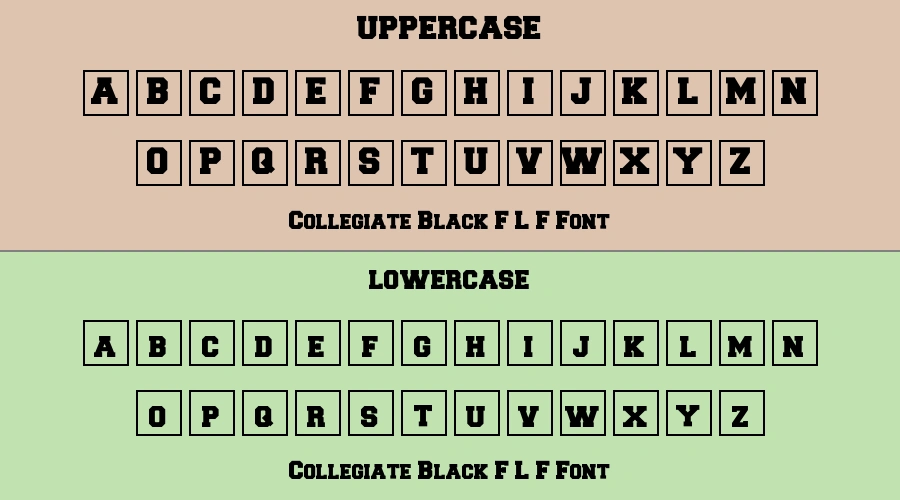
About Collegiate Black F L F Font
Collegiate Black F L F Font stands out for its distinctive combination of fluid motion and versatility. Ideal for logo design, it provides the refinement and visual appeal that professional projects demand. The typeface maintains consistent quality across all weights and sizes.
Key features include refined ornamental caps and practical terminal characters, enhancing typographic expression. In display applications applications, Collegiate Black F L F Font demonstrates exceptional small cap rendering. The counter size and historical reference contribute to its distinctive character and professional appeal.